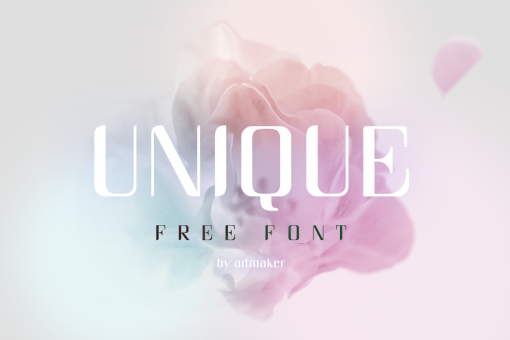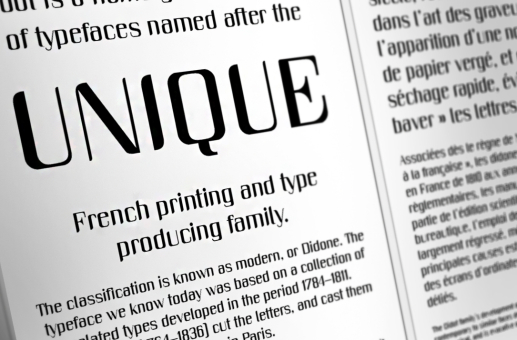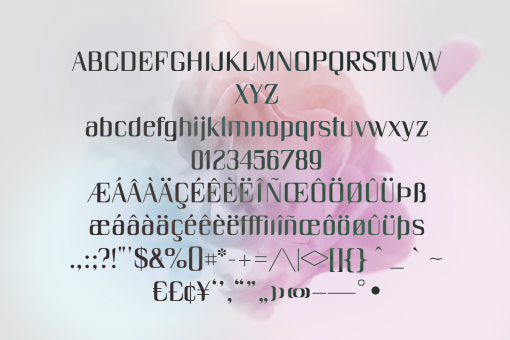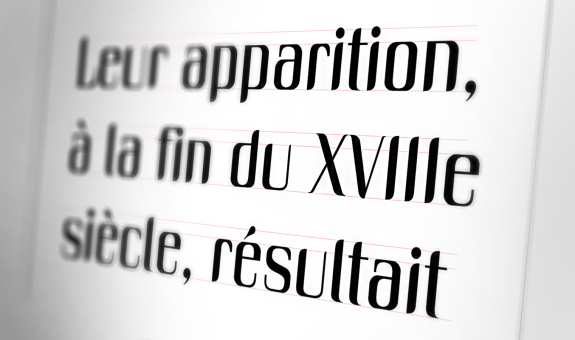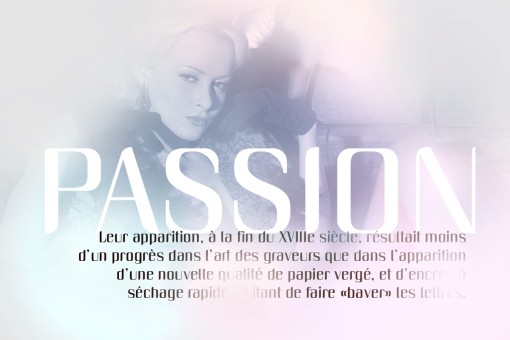
UNIQUE
Display hybrid typeface. A little bit fashy, retro, but still contemporary font
designed especially for your greatest headings & logotypes.
Designer: Anna Pocius
Publisher: Anna Pocius